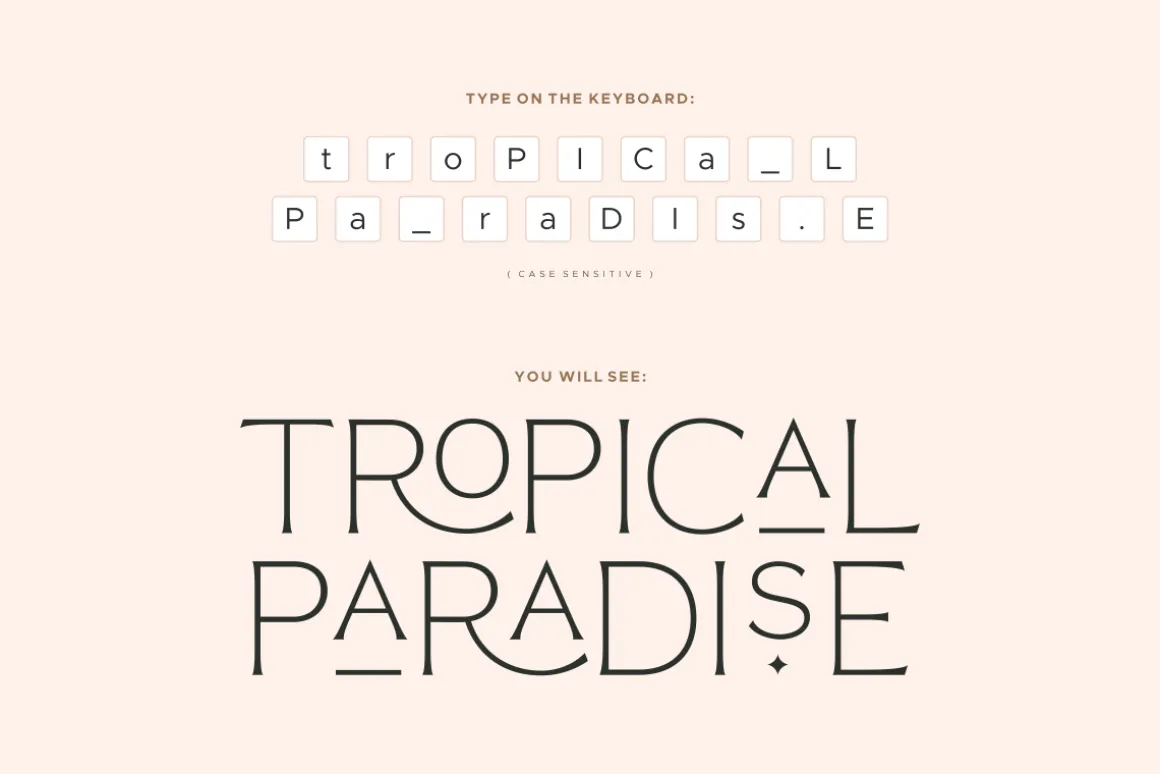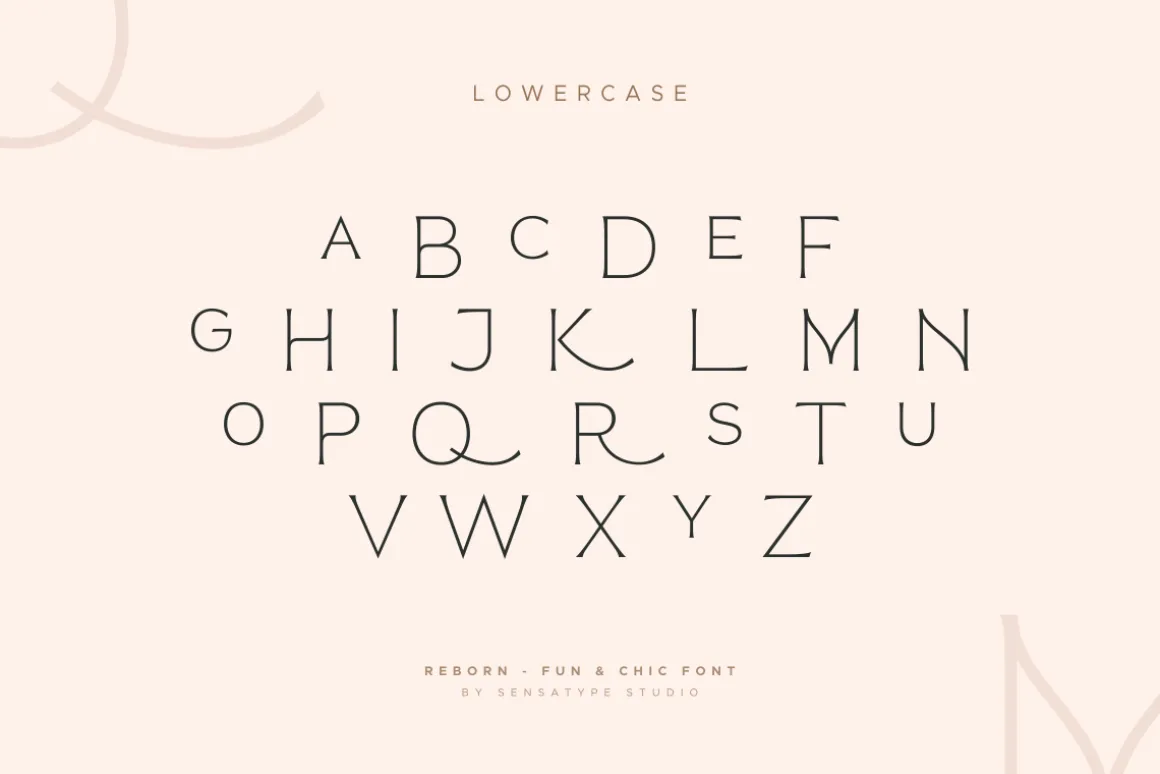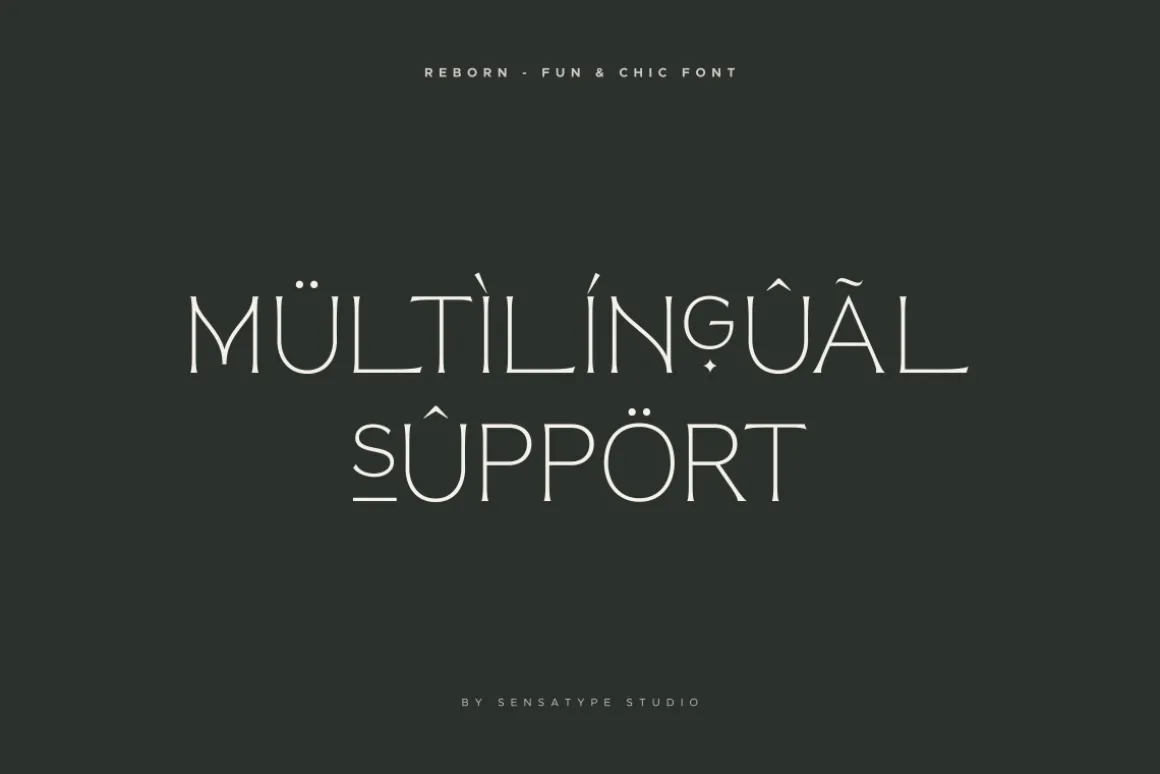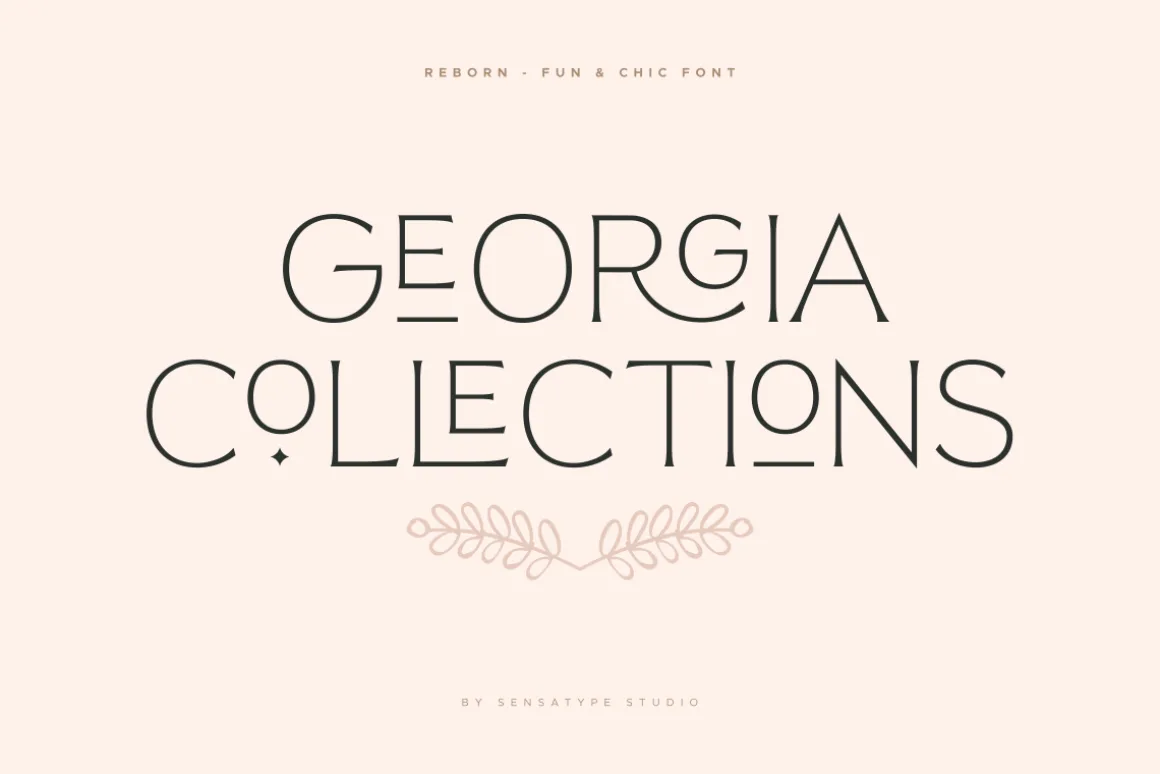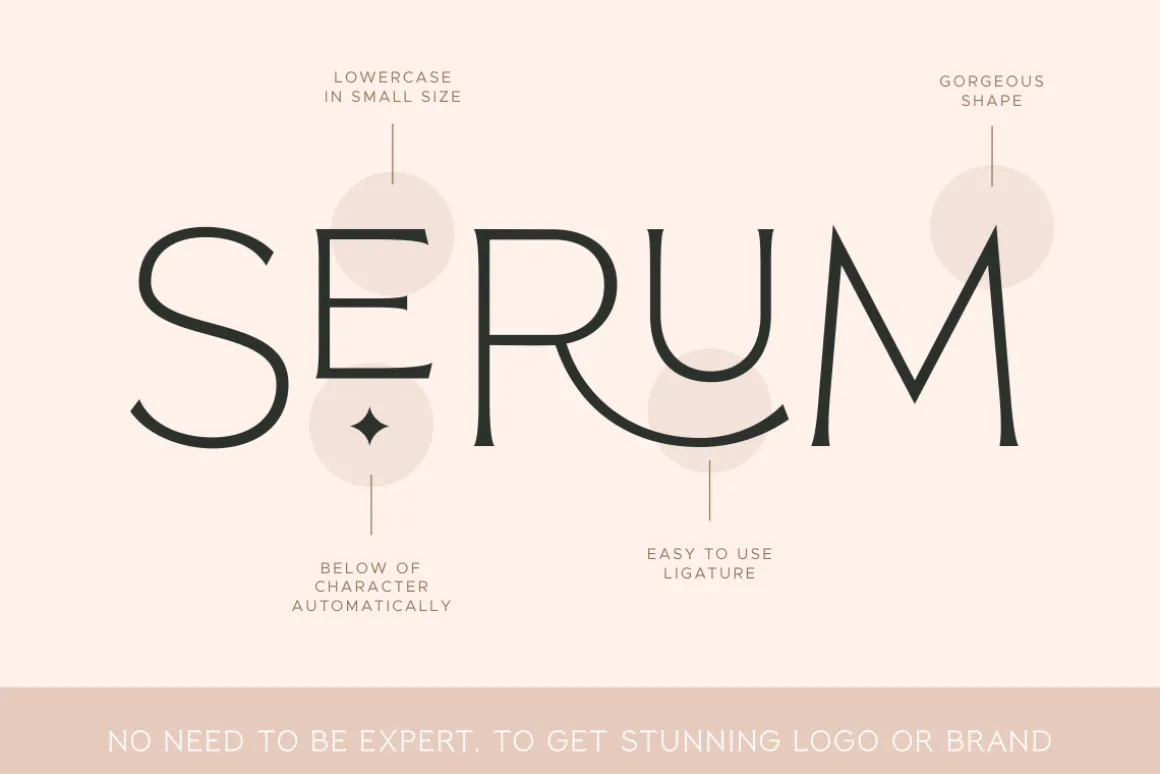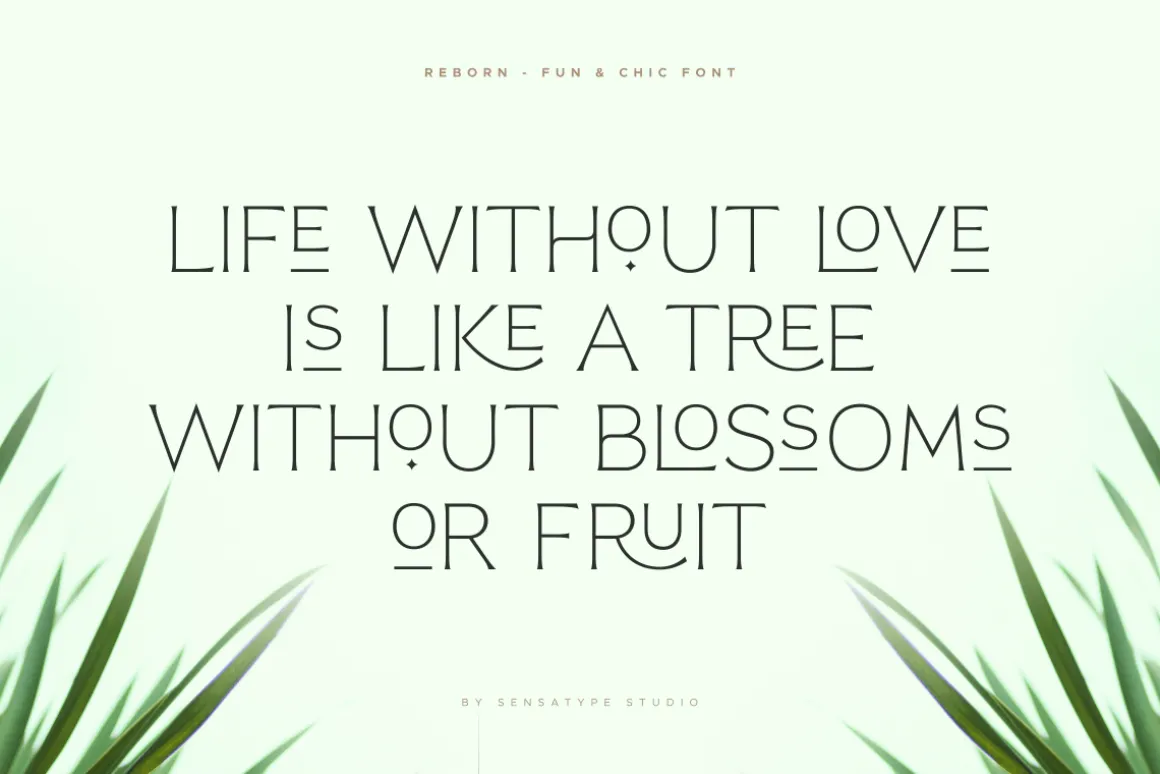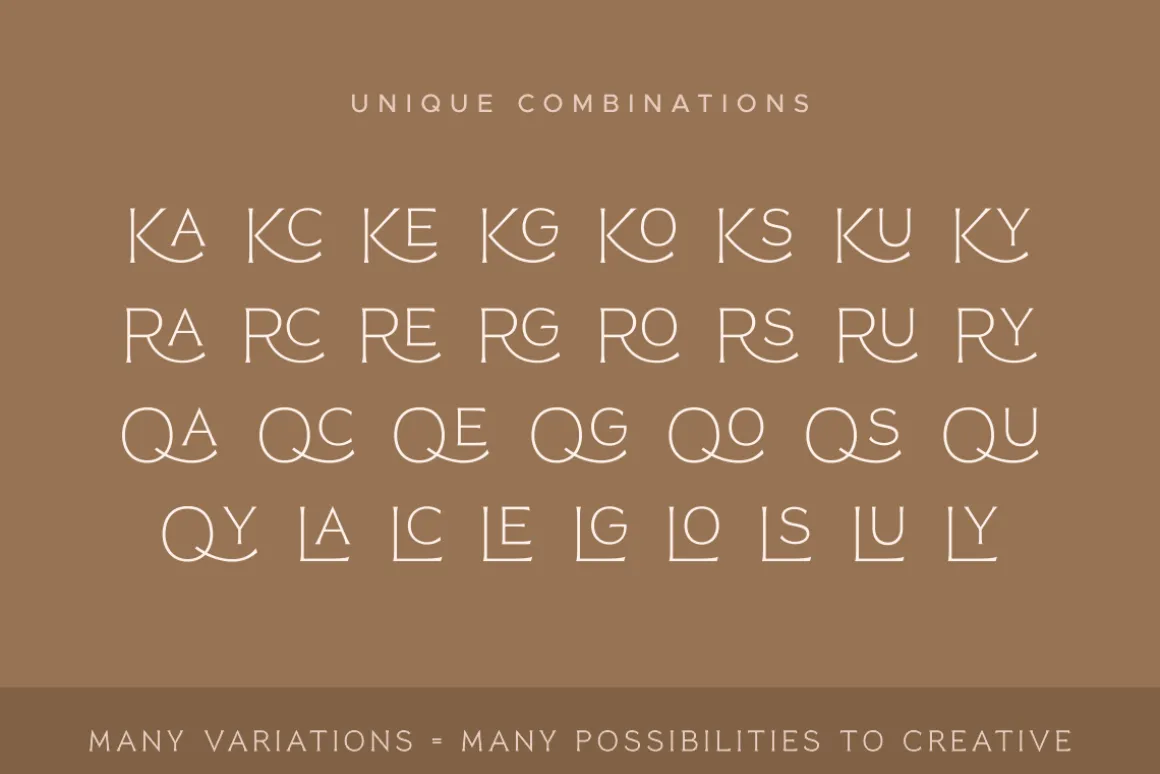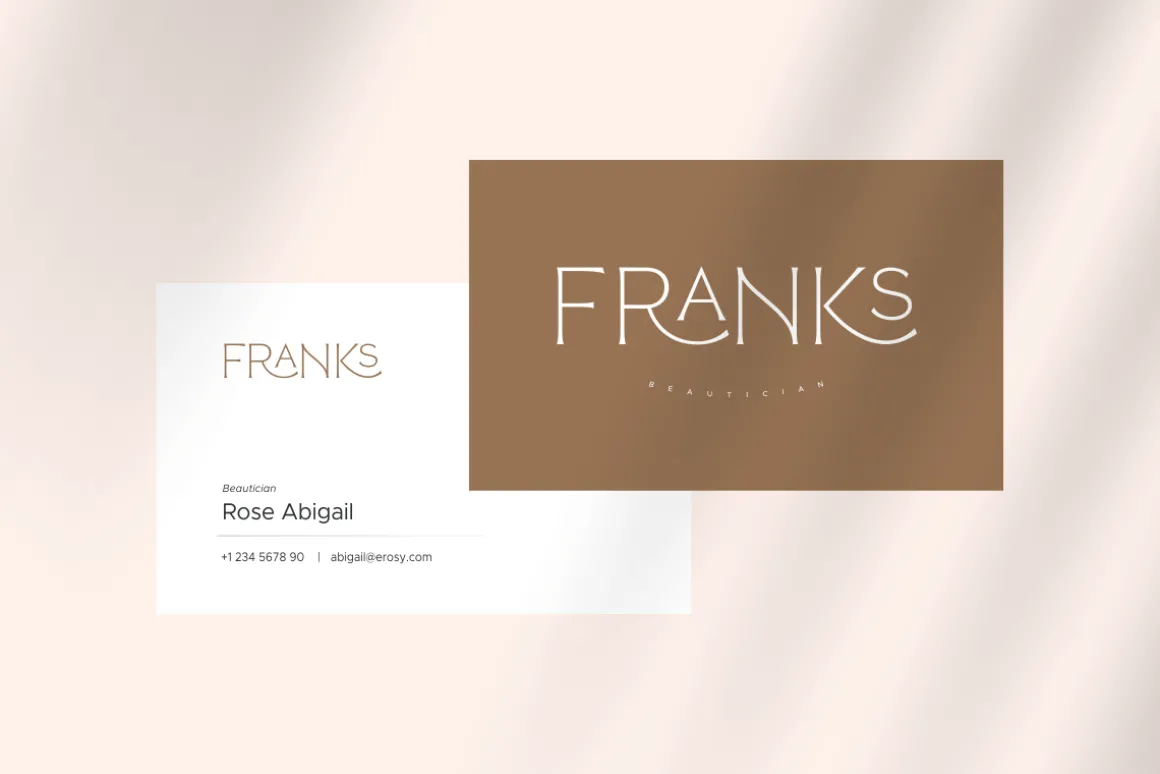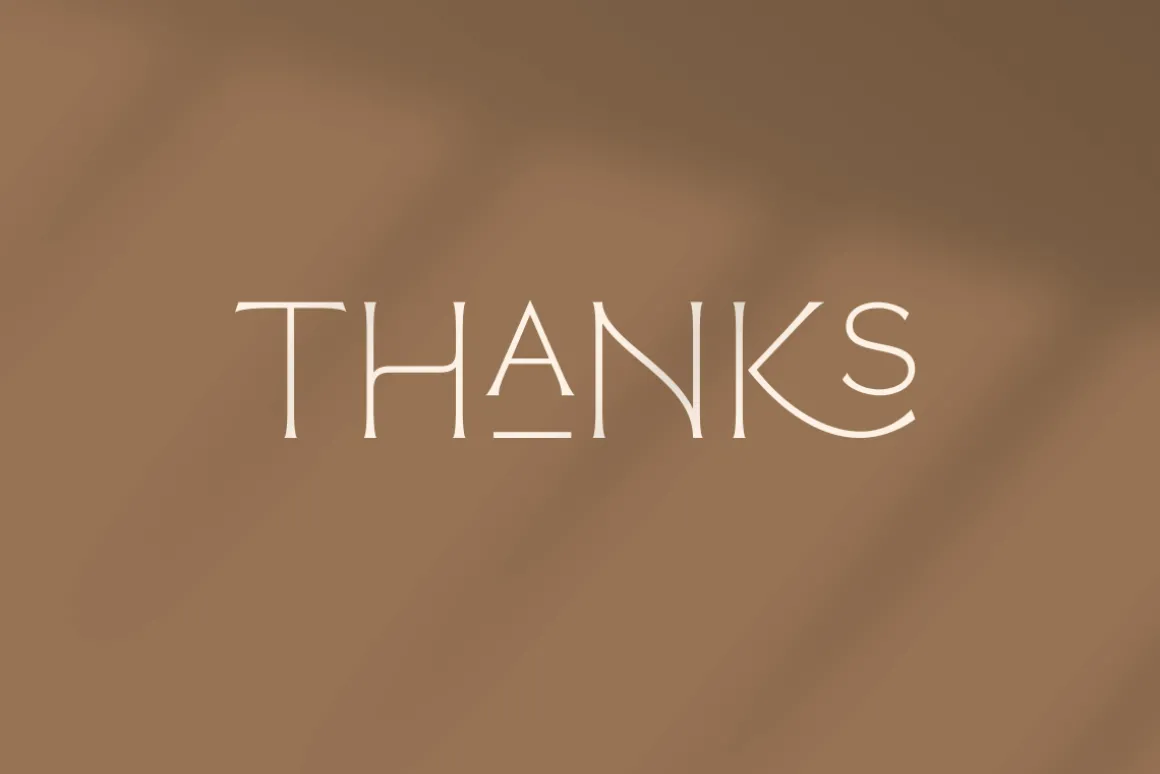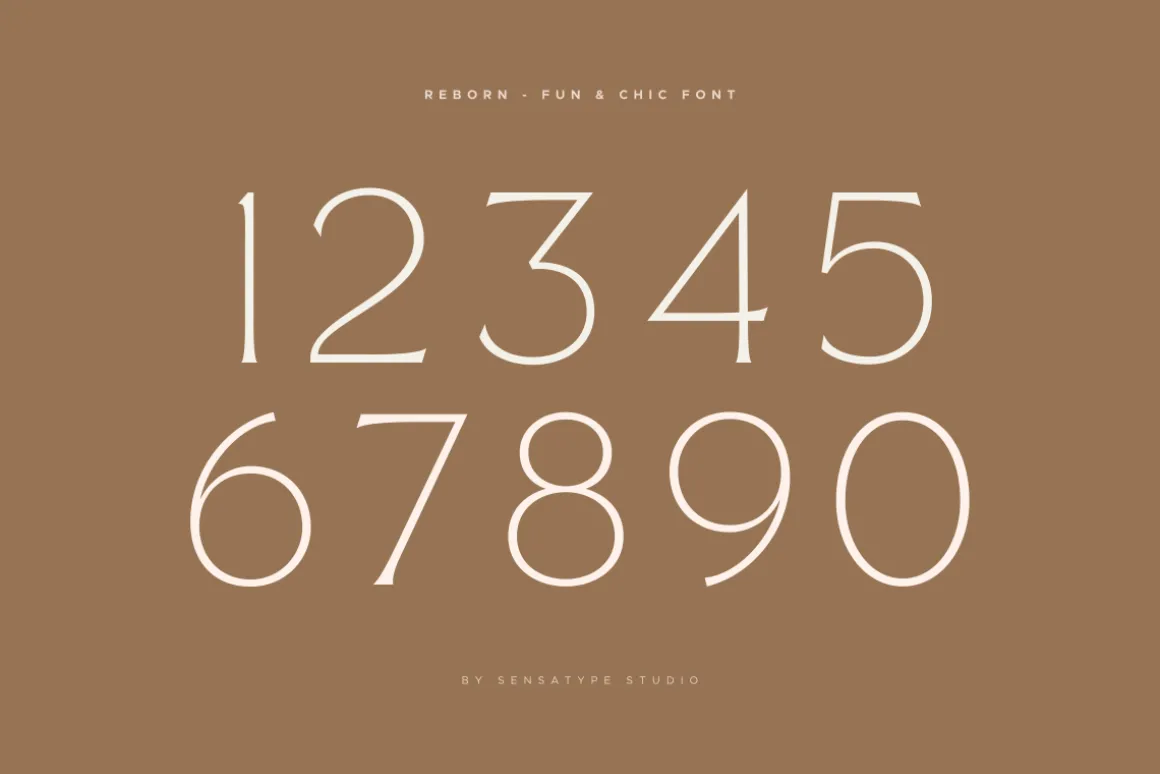
Reborn is a modern and chic font for brand and logo design with ligature that easy to use for beginner and ready to use on any software that support Opentype Feature. This is based on our experience as a font creator, so many users with dummy and never use Opentype feature before. So, we try to brainstorming and create this font to make the idea is going out. This is perfect for BRANDING and LOGO DESIGN. You will get chic, unique, and certainly font for graphic design.
To make it look more unique, here we prepared some ligatures:
KA KC KE KG KO KS KU KY RA RC RE RG RO RS RU RY
QA QC QE QG QO QS QU QY LA LC LE LG LO LS LU LY
Include Fancy Style in some Uppercase and Lowercase, Just try it!!!
Reborn is also included full set of:
- uppercase and lowercase letters
- multilingual symbols
- numerals
- punctuation
- ligatures